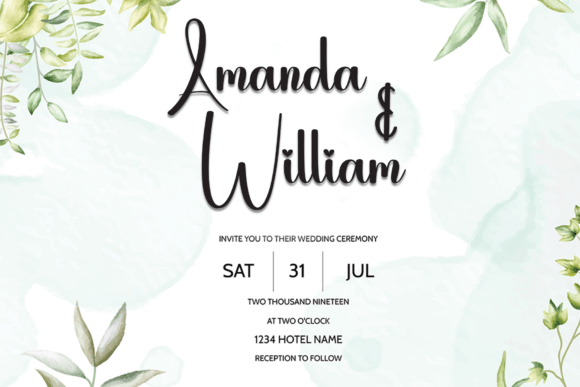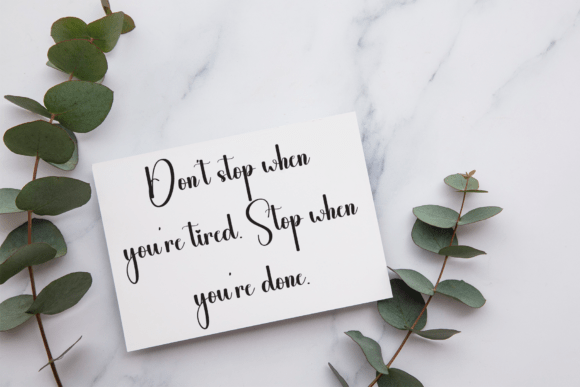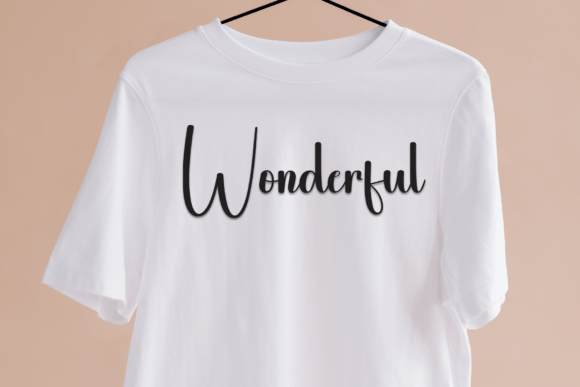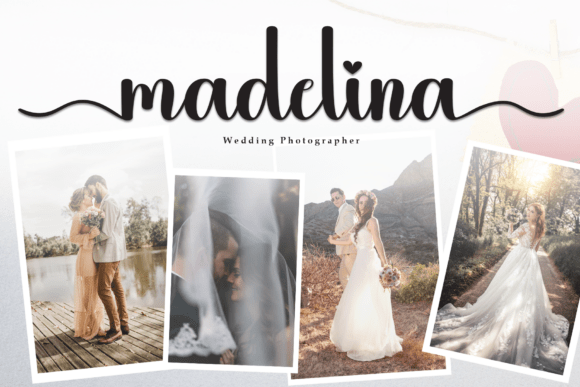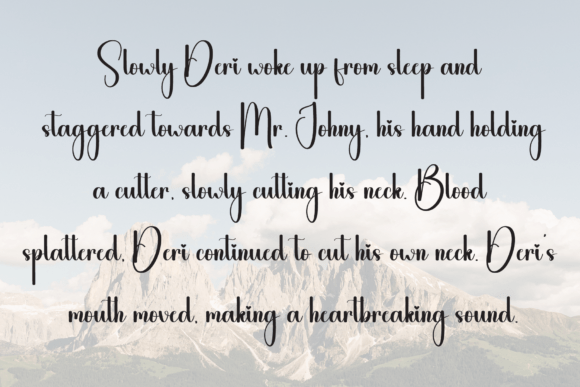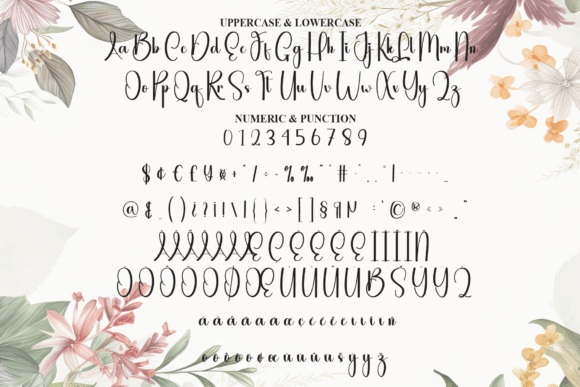
Unlocking the Power of Personal Expression with Autism Font
As a designer, there’s no feeling quite like the rush of inspiration that hits when a new project is born. The blank page stares back at you, waiting for the perfect combination of words and images to bring it to life. And then, it happens – a spark of creativity ignites, and the ideas start flowing. For many of us, this moment is what makes all the late nights and early mornings worth it.
One of the most exciting tools in your creative arsenal is Autism Font, a beautiful handwritten script that adds a touch of modern elegance and whimsy to any design. Whether you’re crafting a logo, packaging, or invitation, Autism Font is the perfect companion to help you infuse your work with warmth, sophistication, and creativity. As a designer, you know how valuable it is to have a versatile and high-quality font at your fingertips – and Autism Font delivers just that.
Autism Font Key Features
- Unique Characteristics: The font is designed with a specific letterform and spacing that helps individuals with autism and dyslexia to better read and understand text.
- Clear Distinctions: The font features clear distinctions between similar-looking letters, reducing confusion and improving reading accuracy.
- Accessibility: Designed to be accessible for individuals with autism, dyslexia, and other reading difficulties, making it an ideal choice for educational and therapeutic settings.
Autism Font Review
As a designer, I was intrigued by the Autism Font, a font designed specifically for people with autism and sensory sensitivities. I’ve had the chance to work with it, and here’s my honest review.
- The font’s unique design is a great attempt to create a more comfortable reading experience for people with autism. The use of solid shapes and reduced visual clutter can help reduce visual overload.
- The font’s simplicity and consistency can make it easier for people with autism to focus and process information.
- The font’s availability in multiple weights and styles can provide flexibility for designers to use it in various contexts.
- The font’s simplicity can also make it less engaging and visually appealing for some users.
- The font’s limited character set and kerning issues can affect its usability in certain contexts.
- The font’s design may not be suitable for all types of content, such as creative or artistic work.
While the Autism Font shows promise, its limitations and potential visual drawbacks hold it back from being a go-to choice for designers. However, its unique design and benefits make it a valuable option for specific contexts, such as accessibility-focused design or educational materials.
Getting the Most Out of Autism Font
Some tips for getting the most out of Autism Font include:
– Using it for titles and headings to create visual contrast.
– Pairing it with other fonts to create a unique and visually appealing design.
– Experimenting with different font sizes and colors to create a cohesive look.
Autism Font is commonly used in:
– Autism awareness campaigns and